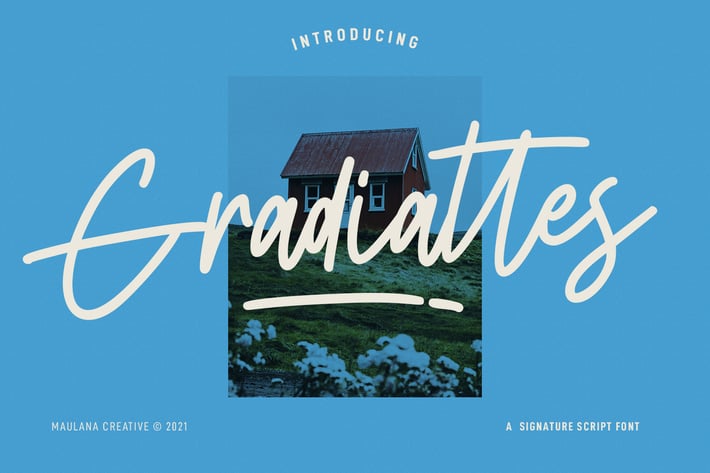
Gradiattes Script Font
Gradiattes is a signature script font. With regular mono-line stroke, fun character with a bit of ligatures and swashes. To give you an extra creative work. Gradiattes font support multilingual more than 100+ language. This font is good for logo design, Social media, Movie Titles, Books Titles, a short text even a long text letter and good for your secondary text font with sans or serif. Make a stunning work with Gradiattes font.